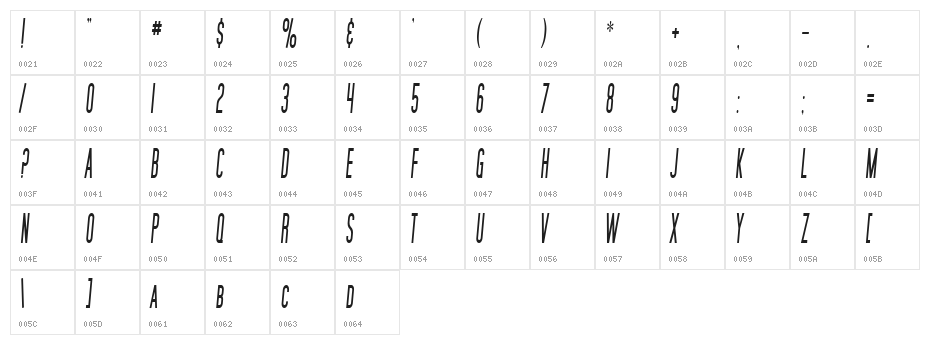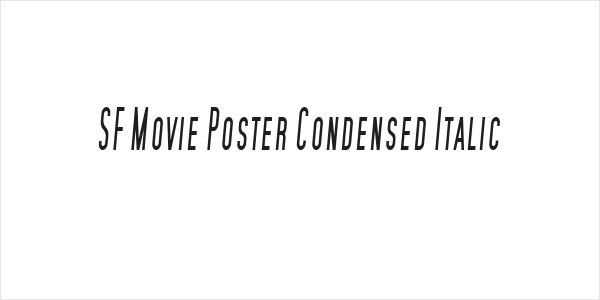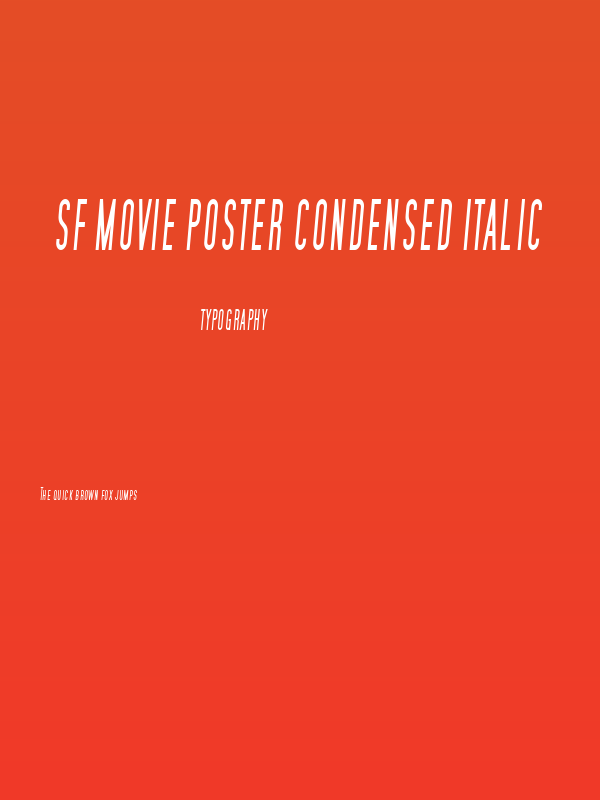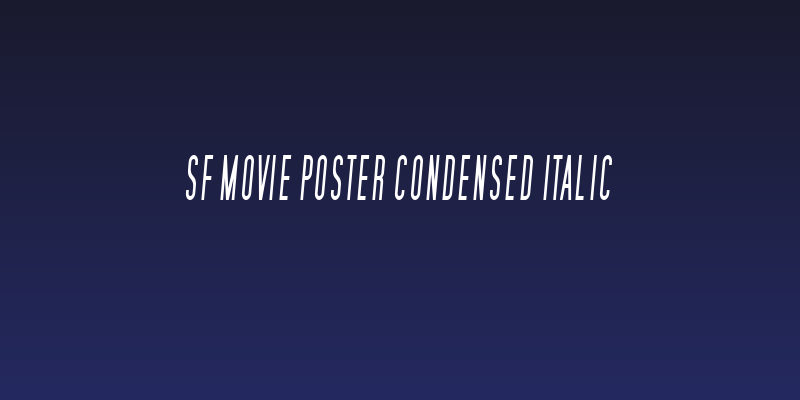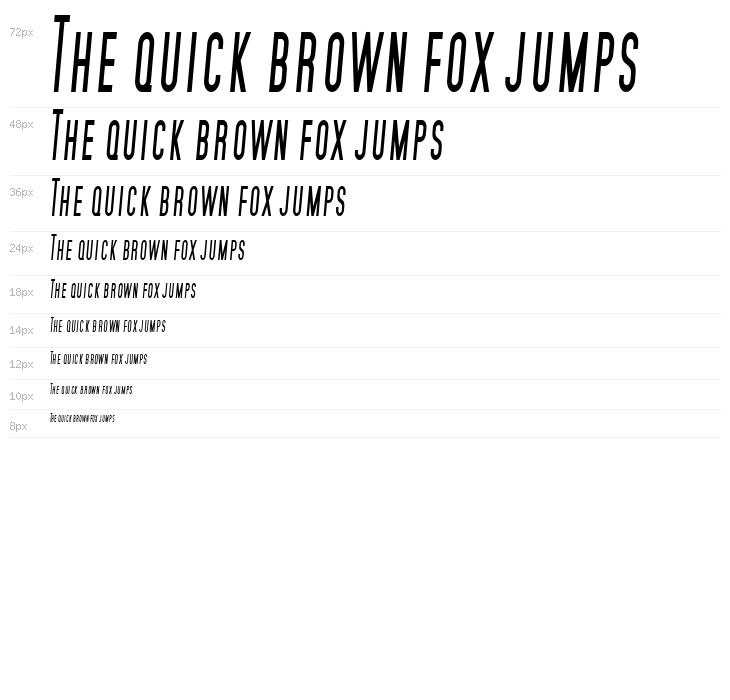
SF Movie Poster Condensed Italic Font
SF Movie Poster Condensed Italic Description
This font features a condensed and italicized style, characterized by tall, narrow letters with a slight slant to the right. The uppercase and lowercase letters maintain a consistent height, creating a uniform appearance. The numerals are similarly styled, with a sleek and modern look. Special characters are designed to match the overall aesthetic, providing a cohesive and professional appearance. The font's condensed nature allows for efficient use of space, making it ideal for headlines and titles where space is limited. Its italic style adds a dynamic and energetic feel, suitable for projects that require a sense of motion or urgency.
| Proposed Projects | Ideal for movie posters, advertising, headlines, and branding materials that require a modern and dynamic look. |